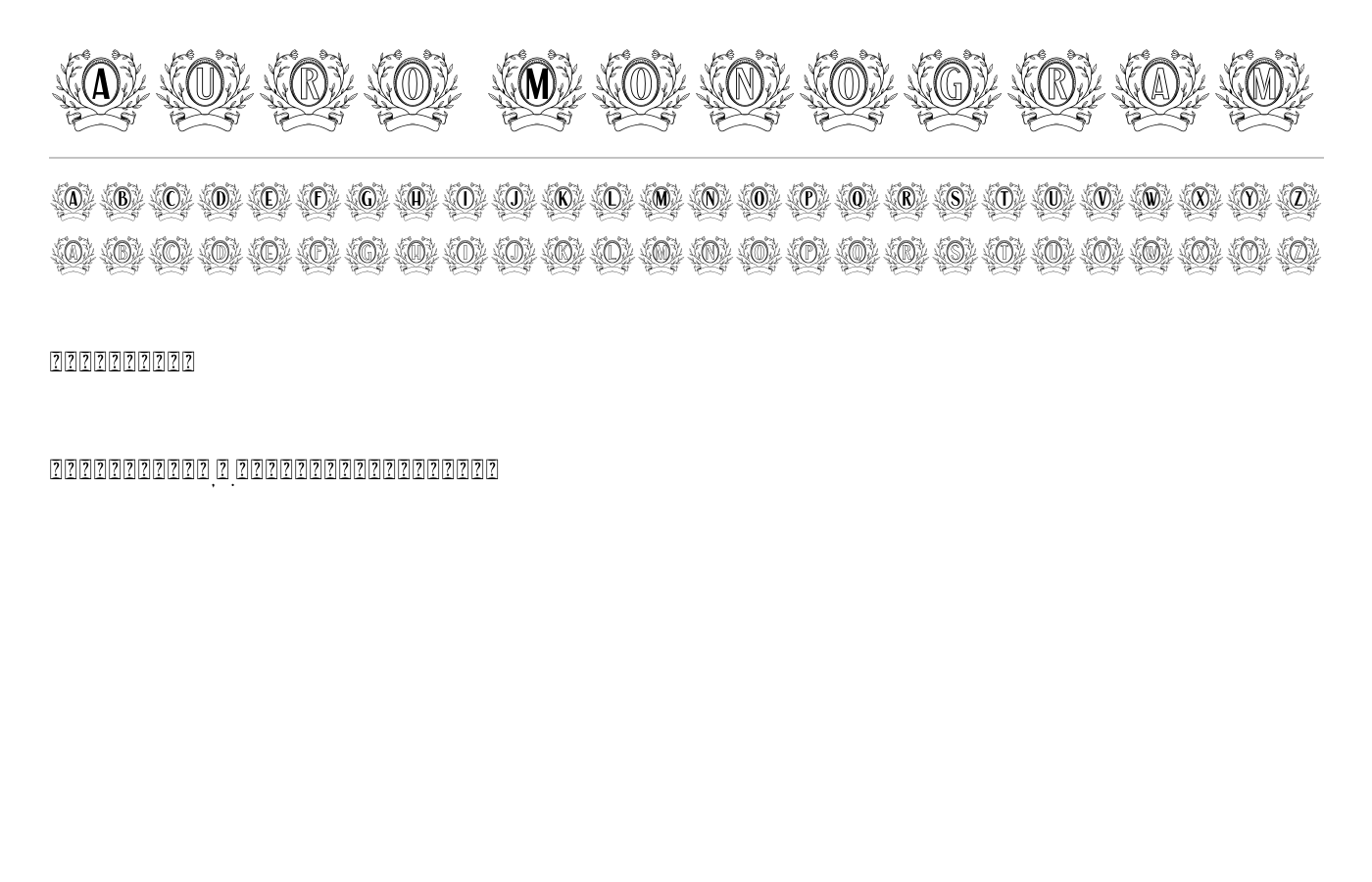
Auro Monogram is a decorative serif font featuring elegant, all-uppercase letters enclosed in intricate laurel wreaths with ribbon banners, evoking a classic and sophisticated vibe. Its bold and refined letterforms make it perfect for luxury branding, monograms, logos, and high-end packaging where a timeless and prestigious look is desired. This font excels in striking headlines and identity design that calls for a regal and ornamental style.
Auro Monogram Font
About Auro Monogram Font
| Font family | Auro Monogram Font |
| Designer | Panggah Laksono @ Abo Daniel Studio |